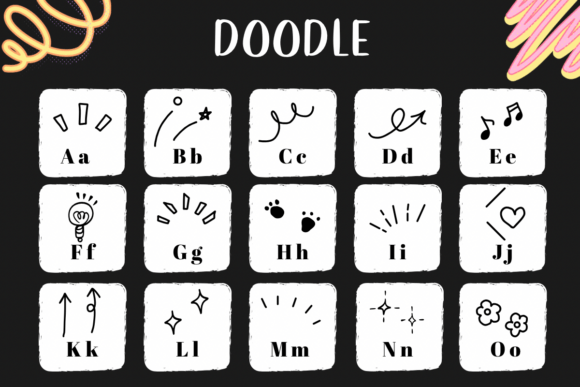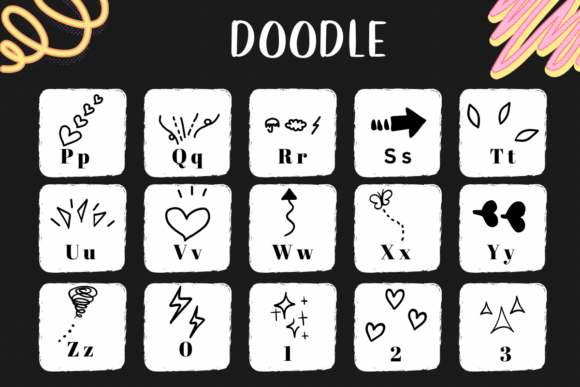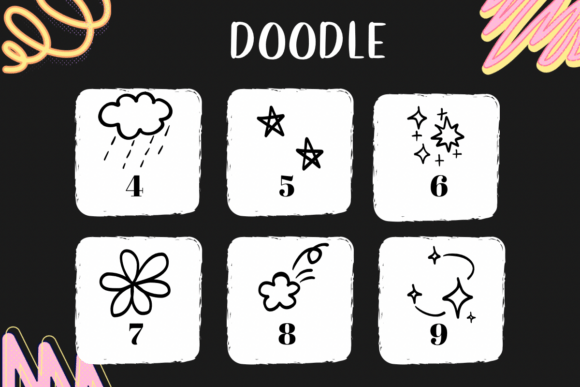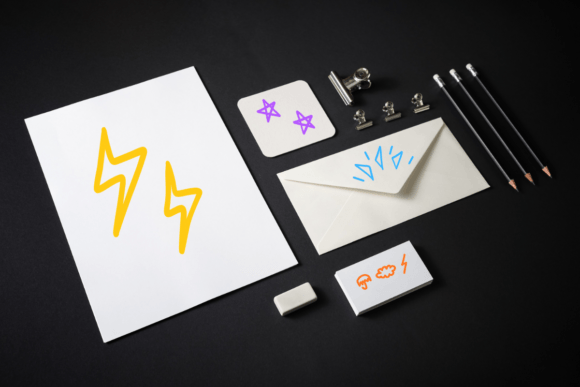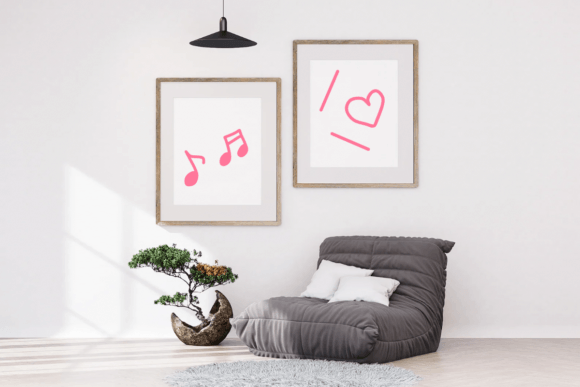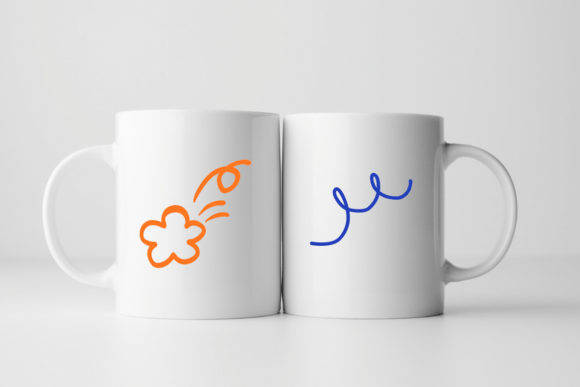
Doodle Font: Unleash Your Creativity with this Abstract Dingbats Font
Are you a designer, crafter, or DIY enthusiast looking for a unique and creative way to add a personal touch to your projects? Look no further than the Doodle Font, a dingbats font with an abstract theme that’s perfect for enhancing your creative endeavors. In this article, we’ll explore the features and benefits of the Doodle Font, and show you how it can elevate your wedding invitations, DIY projects, crafts, decorations, logos, and more.
What is Doodle Font?
Doodle Font is a type of dingbats font that features abstract shapes and designs, rather than traditional letterforms. This font is perfect for adding a creative and playful touch to your projects, and can be used to create a wide range of unique and eye-catching designs. With its abstract theme, Doodle Font is ideal for designers and crafters who want to add a personal touch to their work.
Features of Doodle Font
So, what makes Doodle Font so special? Here are just a few of its key features:
• Abstract theme: Doodle Font features a range of abstract shapes and designs, from simple lines and curves to more complex patterns and motifs.
• Dingbats style: Unlike traditional fonts, Doodle Font is a dingbats font, which means it’s perfect for adding decorative elements to your designs.
• Versatile: Doodle Font can be used for a wide range of projects, from wedding invitations and DIY crafts to logos and decorations.
Uses for Doodle Font
So, what can you do with Doodle Font? The possibilities are endless! Here are just a few ideas to get you started:
• Wedding invitations: Add a personal touch to your wedding invitations with Doodle Font’s abstract shapes and designs.
• DIY crafts: Use Doodle Font to create unique and eye-catching designs for your DIY crafts, from cards and gift tags to decorations and more.
• Logos: Create a memorable and eye-catching logo for your business or brand with Doodle Font’s abstract theme.
• Decorations: Use Doodle Font to create custom decorations for your home or office, from wall art to party decorations.
Tips for Using Doodle Font
Here are a few tips for getting the most out of Doodle Font:
• Experiment with different colors: Doodle Font looks great in a range of colors, so don’t be afraid to experiment and find the perfect hue for your project.
• Combine with other fonts: Mix and match Doodle Font with other fonts to create a unique and eye-catching design.
• Use it sparingly: While Doodle Font is perfect for adding a creative touch to your projects, it’s best used sparingly to avoid overwhelming the design.
In conclusion, Doodle Font is a versatile and creative dingbats font with an abstract theme that’s perfect for designers, crafters, and DIY enthusiasts. With its range of abstract shapes and designs, Doodle Font can add a personal touch to your wedding invitations, DIY projects, crafts, decorations, logos, and more. So why not give it a try and see what amazing creations you can come up with?
Whether you’re a seasoned designer or a crafty DIY enthusiast, Doodle Font is a great addition to your font collection. So why not give it a try and see what amazing creations you can come up with?